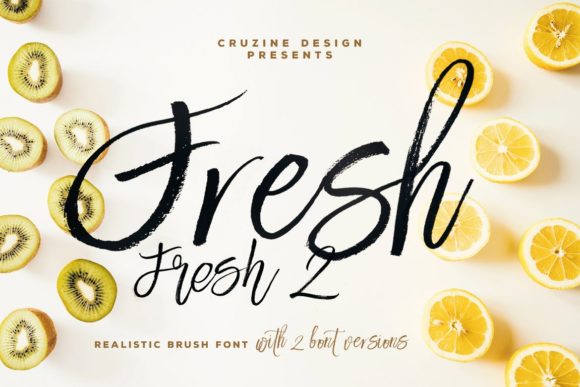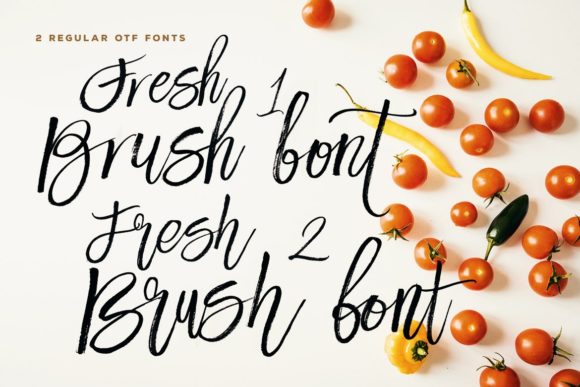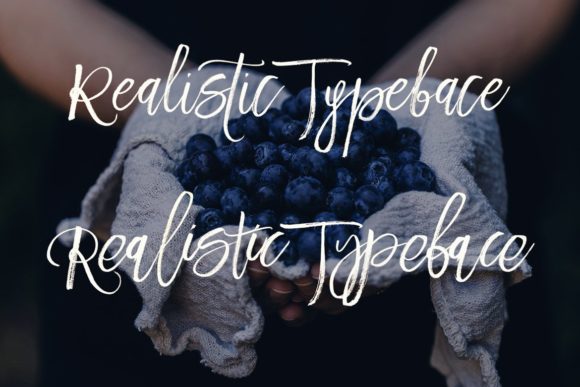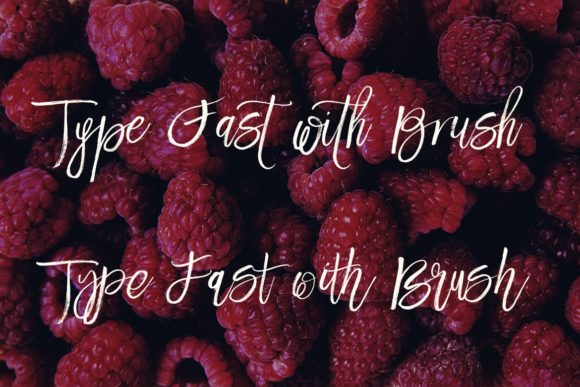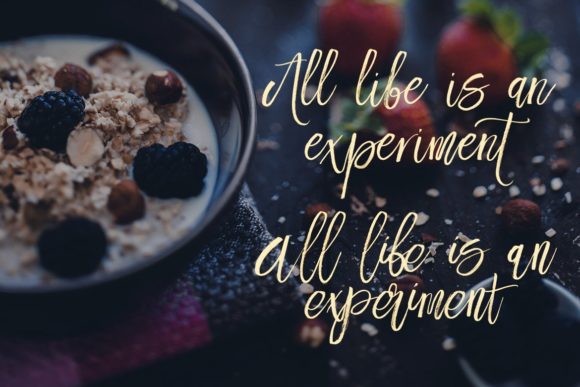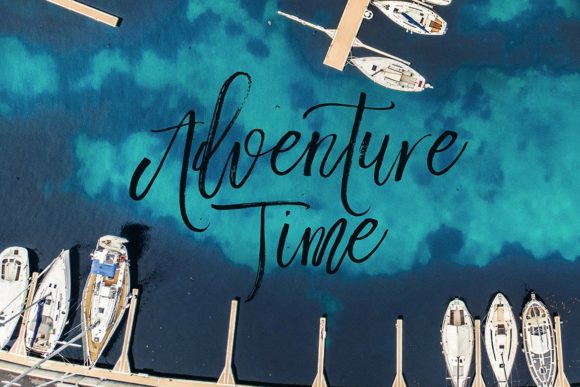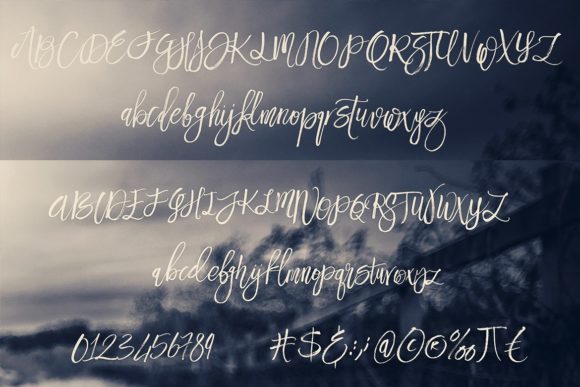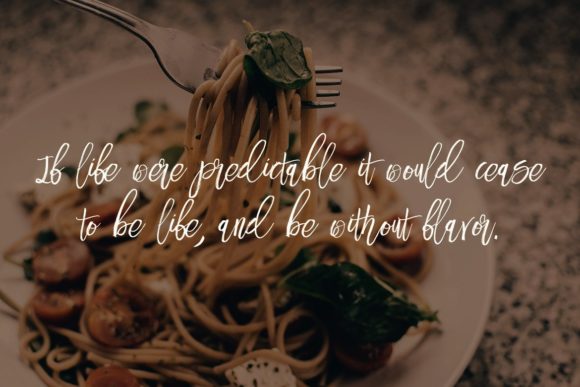
Fresh Font
About Fresh Font
Fresh is an incredibly cool and bold handwritten font with a natural feel. Fall in love with its organic and radiant look!